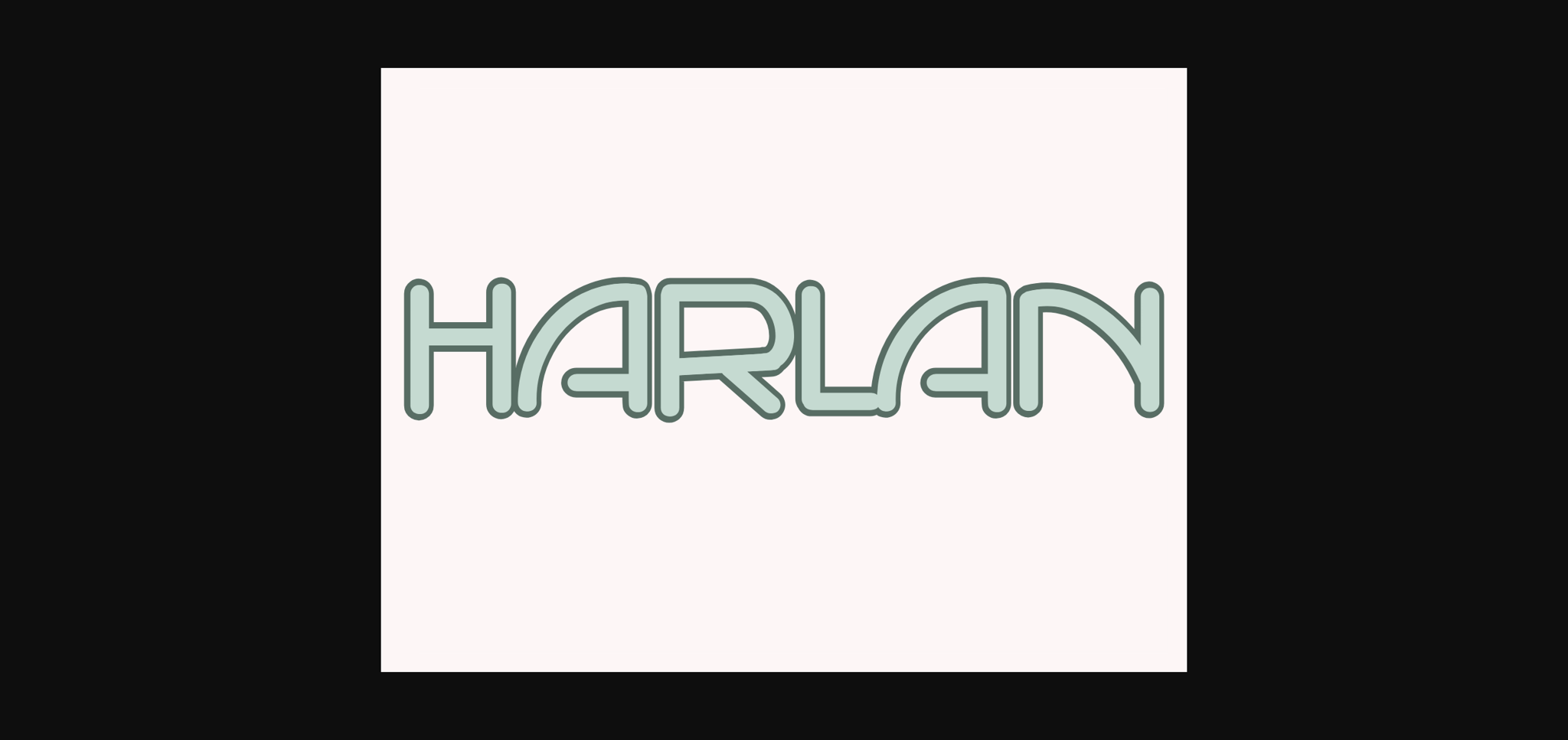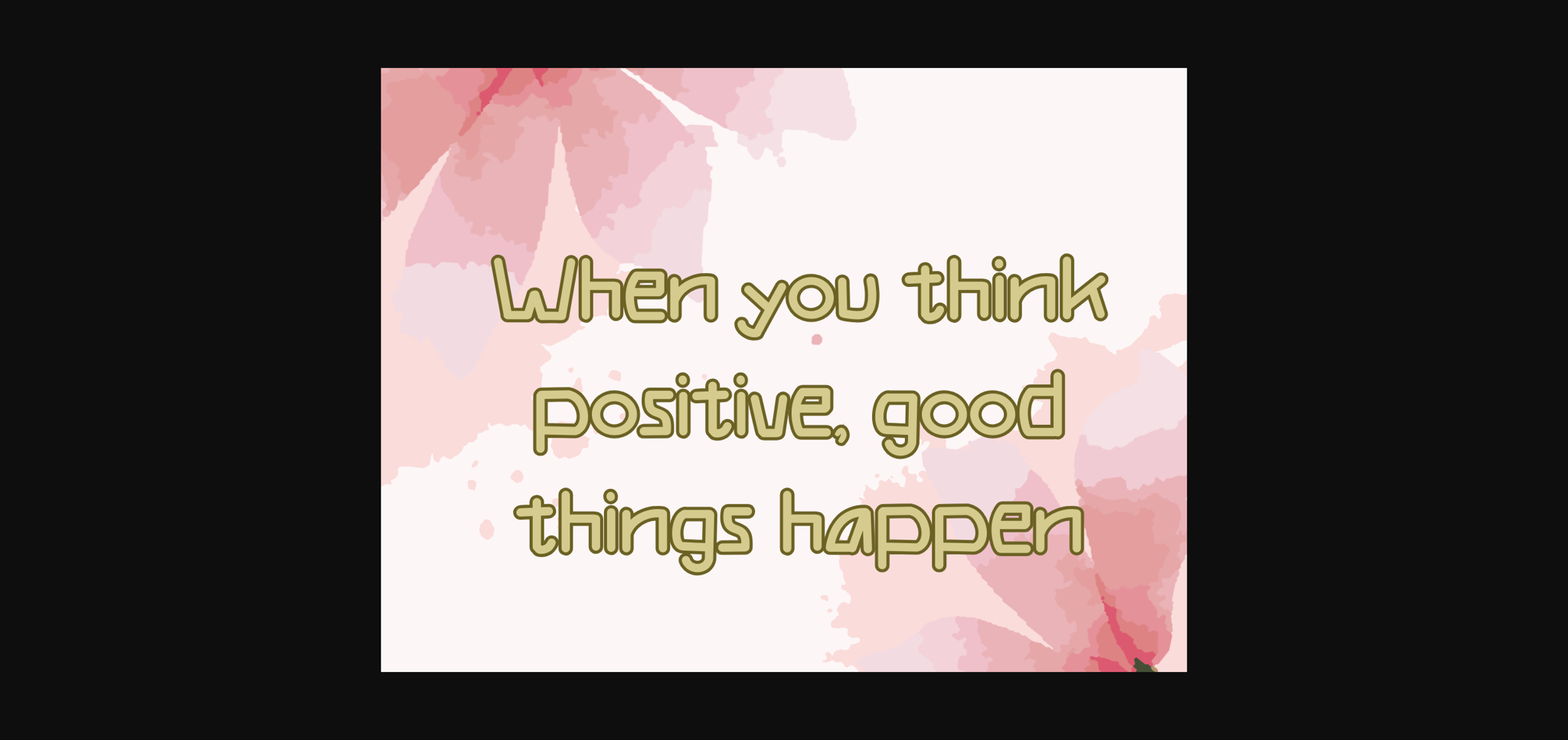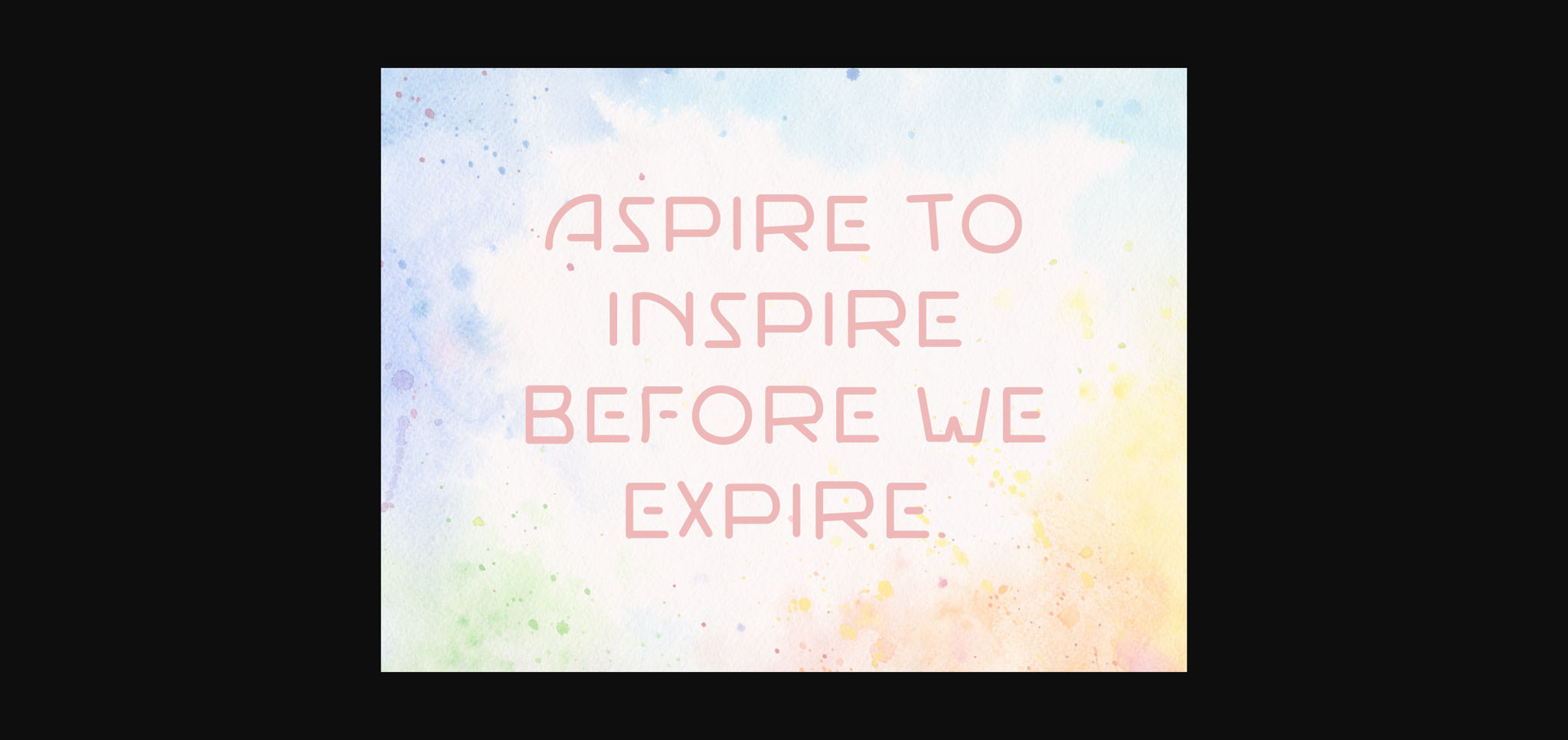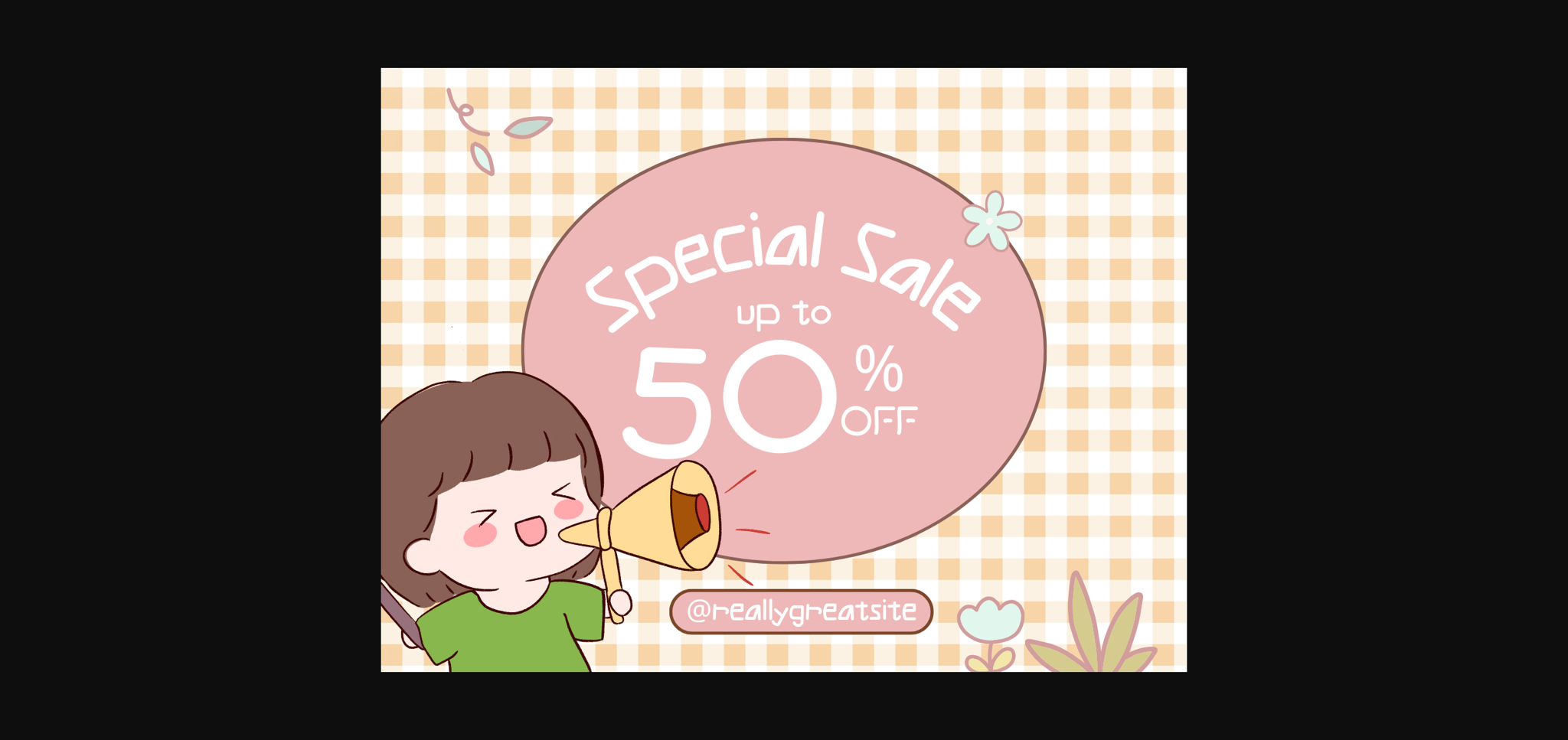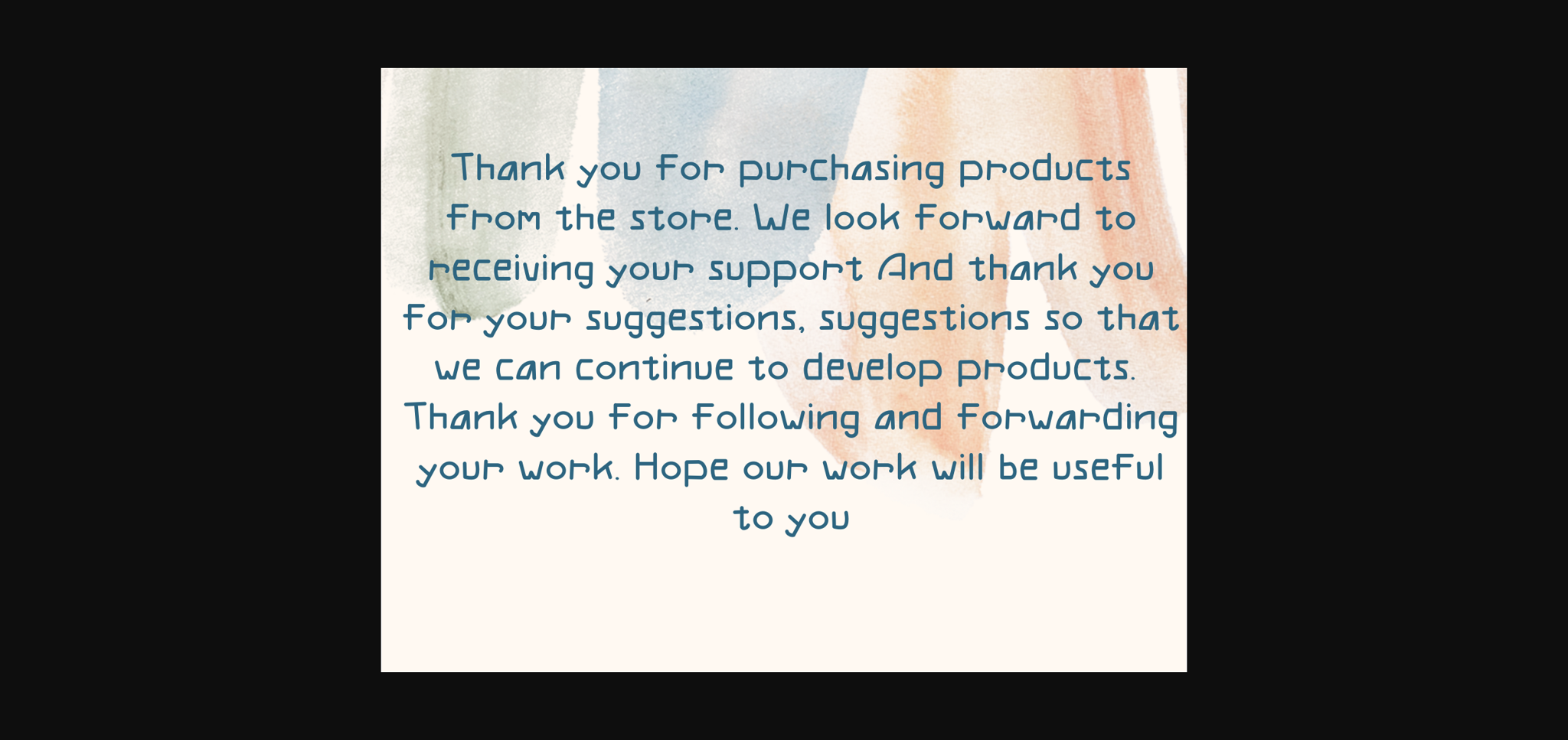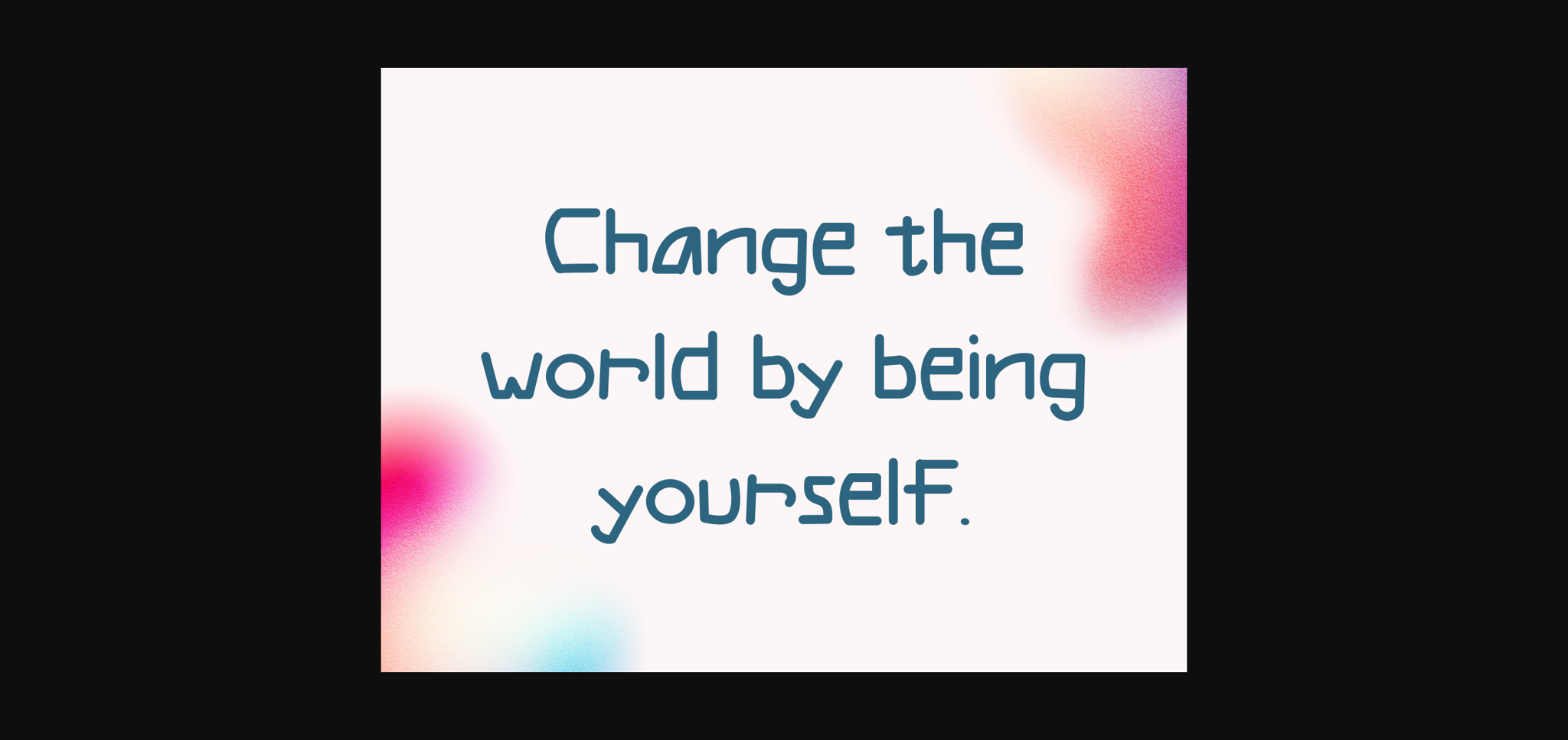
About Haran Font
Haran has its own identity, it can be used to add distinctiveness to your work whether it is used in a letter. Design greeting cards, wedding cards, quotes, goodnotes, planners, handwritten notes, logos, and teachers, and it will give your letters a unique look. With this designed font your work will be distinguished.